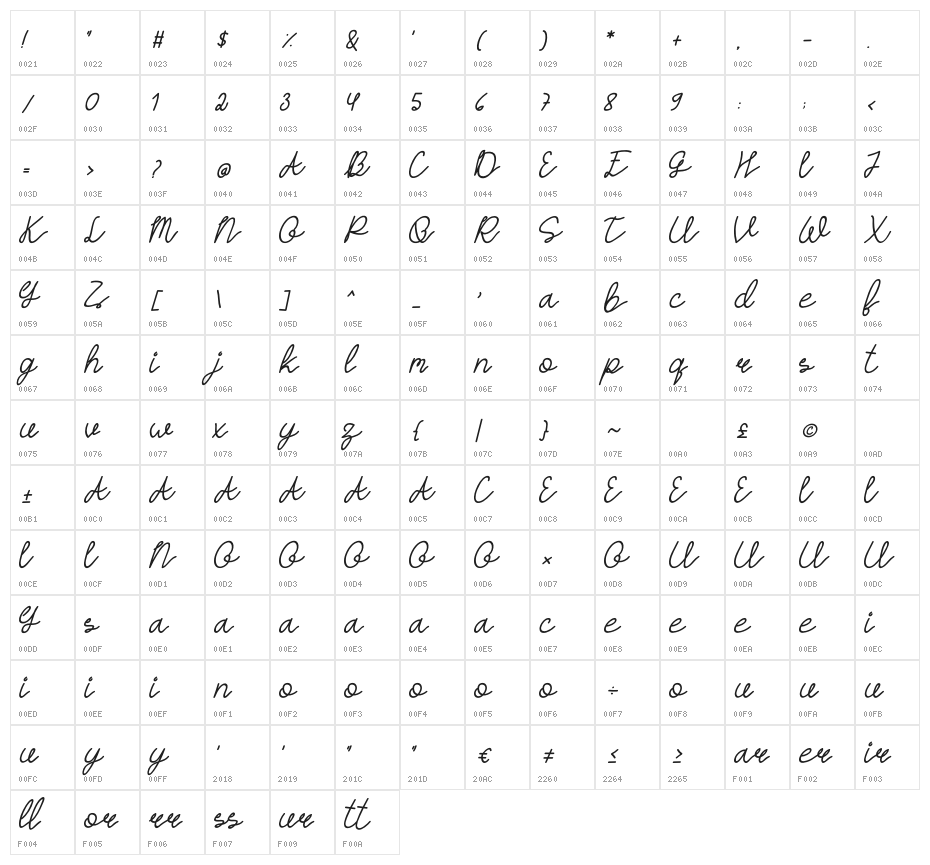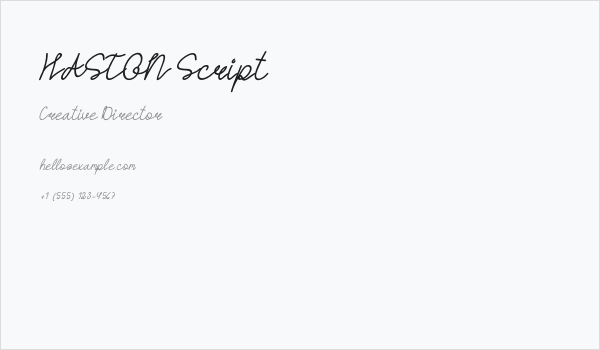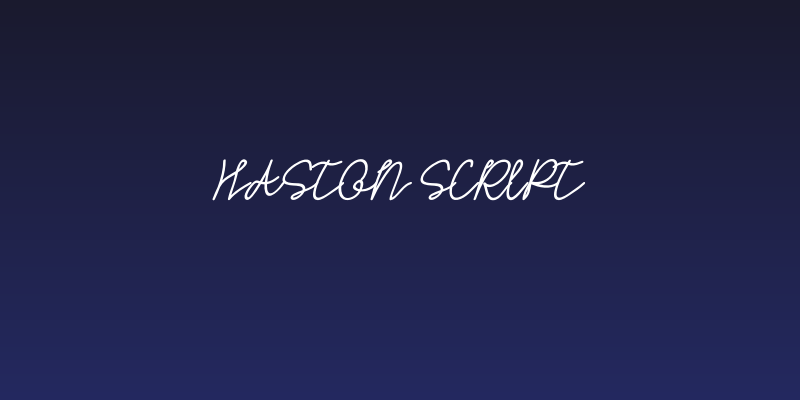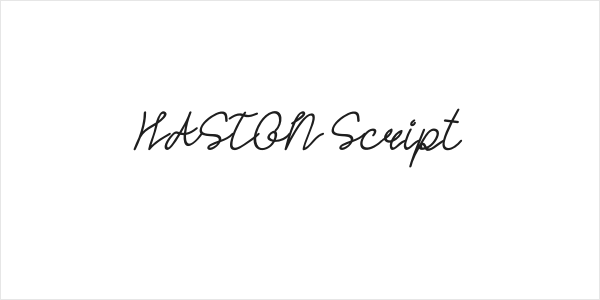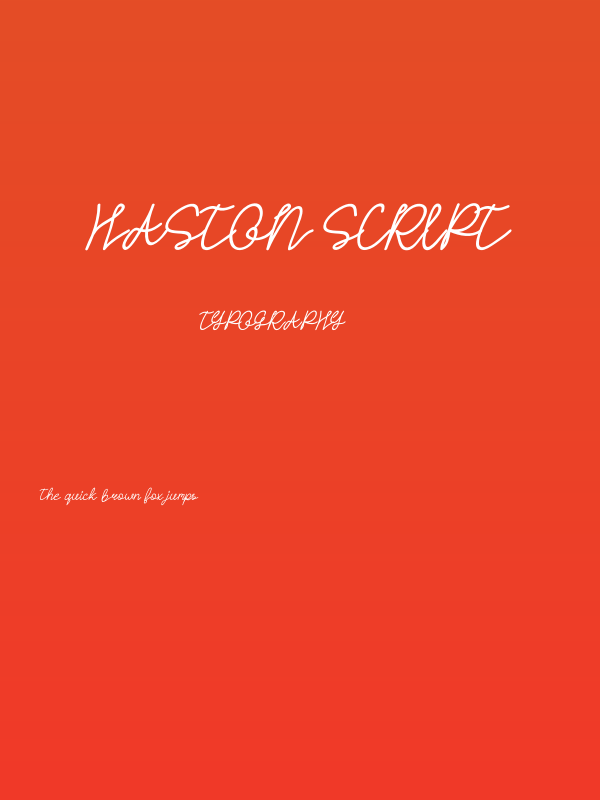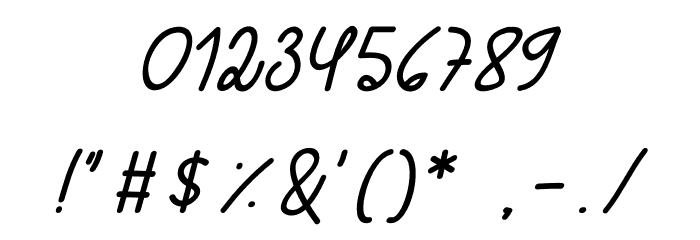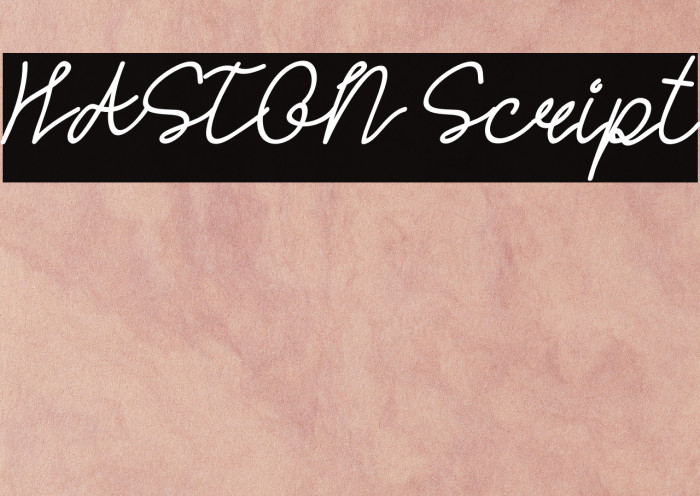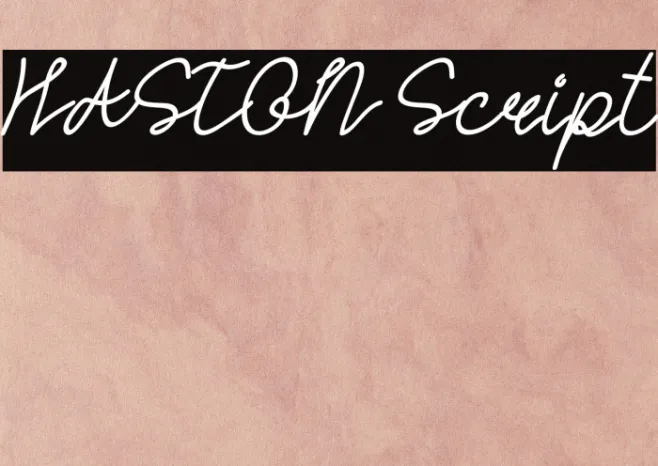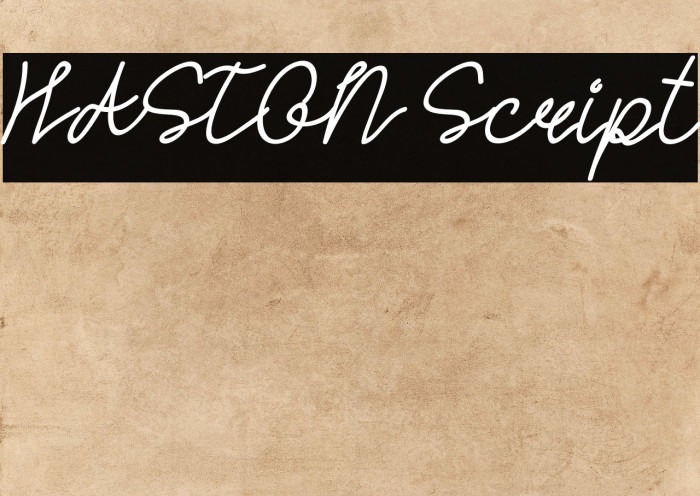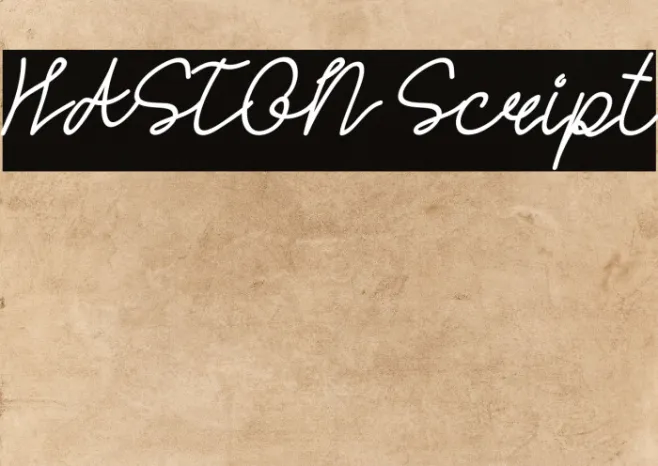
HASTON Script Font
HASTON Script Description
This font features a flowing, cursive style that mimics elegant handwriting. The characters are interconnected, creating a seamless and fluid appearance. The uppercase letters are slightly more elaborate, with extended loops and swirls, while the lowercase letters maintain a consistent, smooth flow. The numerals and special characters complement the script style, ensuring a cohesive look across all text elements. The overall design exudes a sense of sophistication and grace, making it suitable for formal and decorative purposes.
| Proposed Projects | Ideal for wedding invitations, greeting cards, branding, and elegant logo designs. |